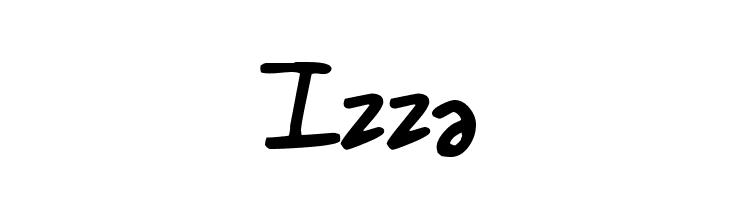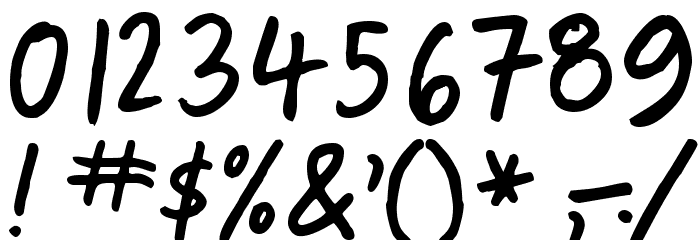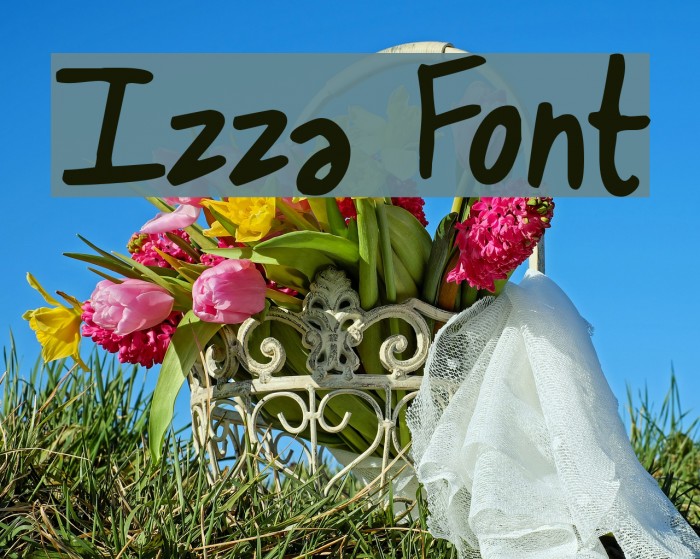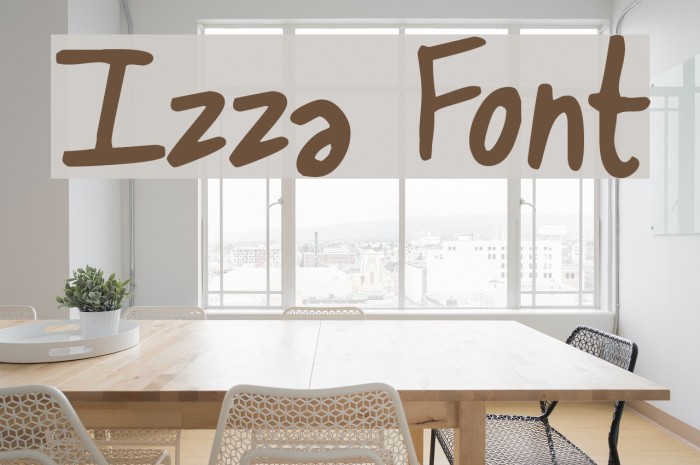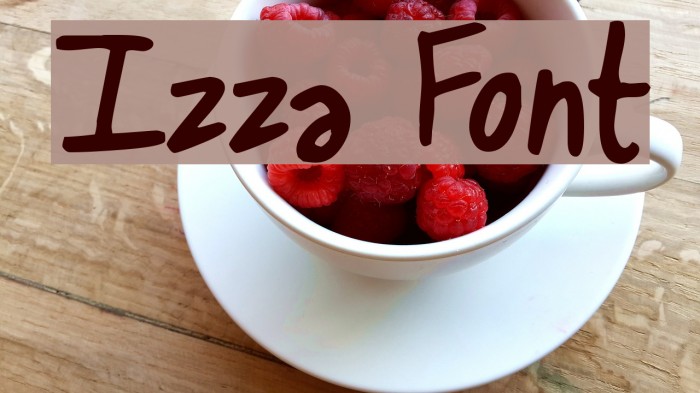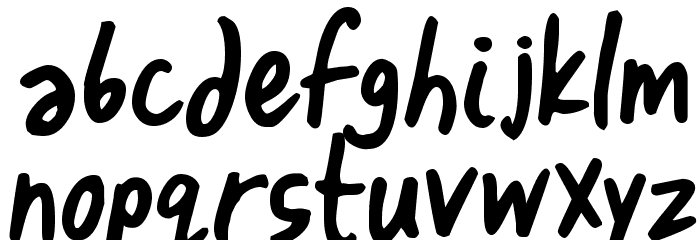
Izza Font
Izza Description
This font features a playful and casual handwritten style, characterized by its irregular and dynamic strokes. The uppercase and lowercase letters exhibit a consistent flow, with slightly exaggerated curves and a lively appearance. The numbers and special characters maintain the same energetic feel, making the font suitable for informal and creative projects. Its unique charm lies in the organic and spontaneous look, reminiscent of a personal touch. The font's overall appearance is approachable and friendly, making it ideal for projects that require a personal and informal tone.
A playful, handwritten font with dynamic and irregular strokes from Uncategorized fonts.
- Overall Style: Casual
- Use Case: Headlines, Informal text, Creative projects